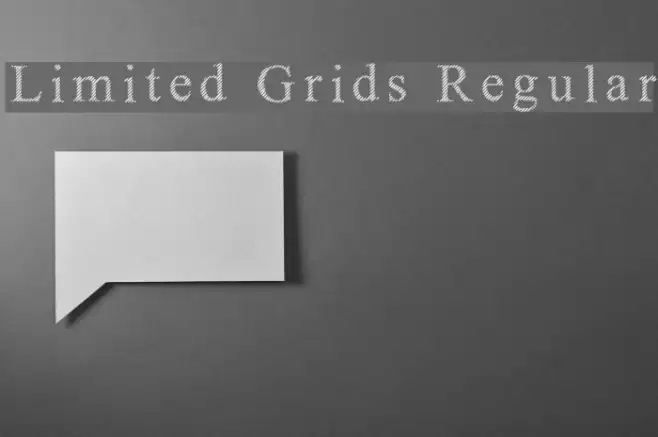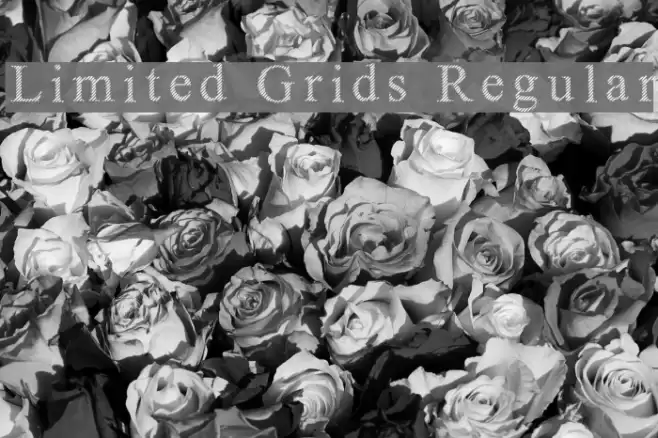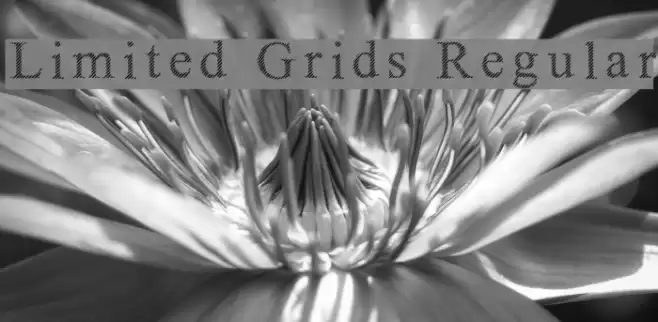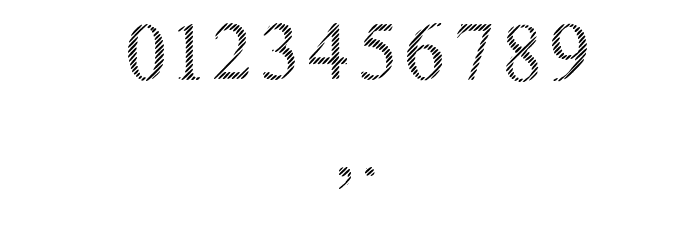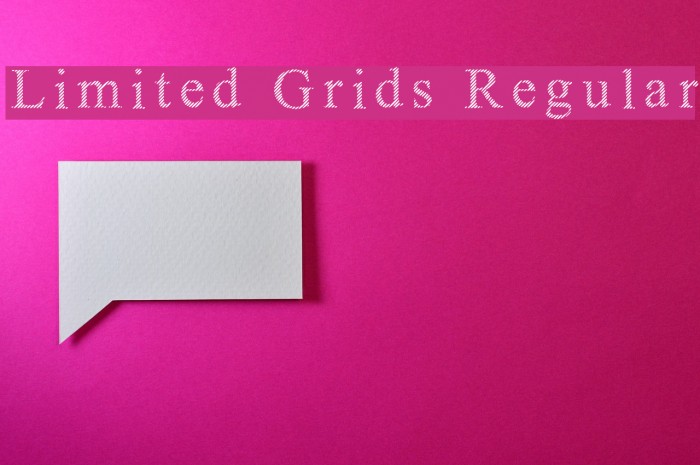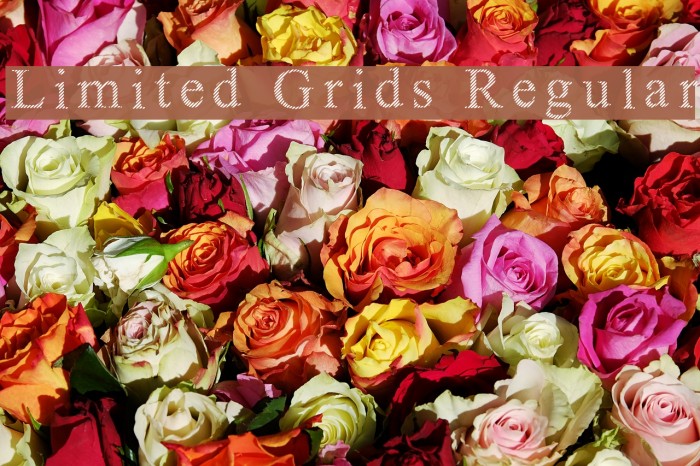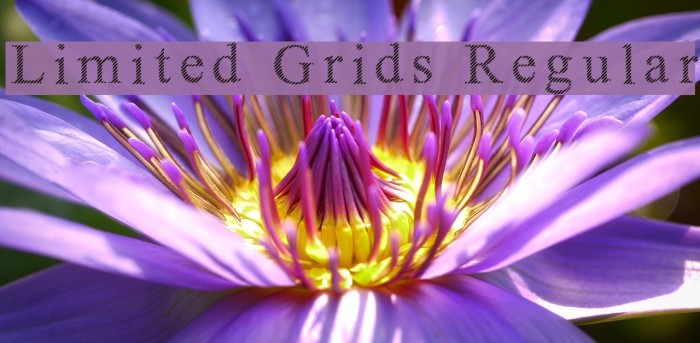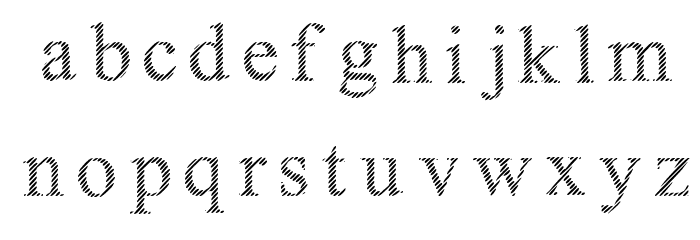
Limited Grids Regular Font
Limited Grids Regular Description
This font features a unique design with diagonal line patterns filling each character, giving it a textured and dynamic appearance. The characters are serifed, providing a classic touch, while the pattern adds a modern twist. The uppercase and lowercase letters maintain a consistent style, with a slight variation in size and proportion. Numbers and punctuation are included, matching the overall aesthetic. This font stands out due to its decorative nature, making it suitable for creative and eye-catching designs.
A serif font with diagonal line patterns for a textured, modern look from Uncategorized fonts.
- Proposed Projects: Ideal for posters, branding, and artistic projects where a distinctive and creative font is desired.